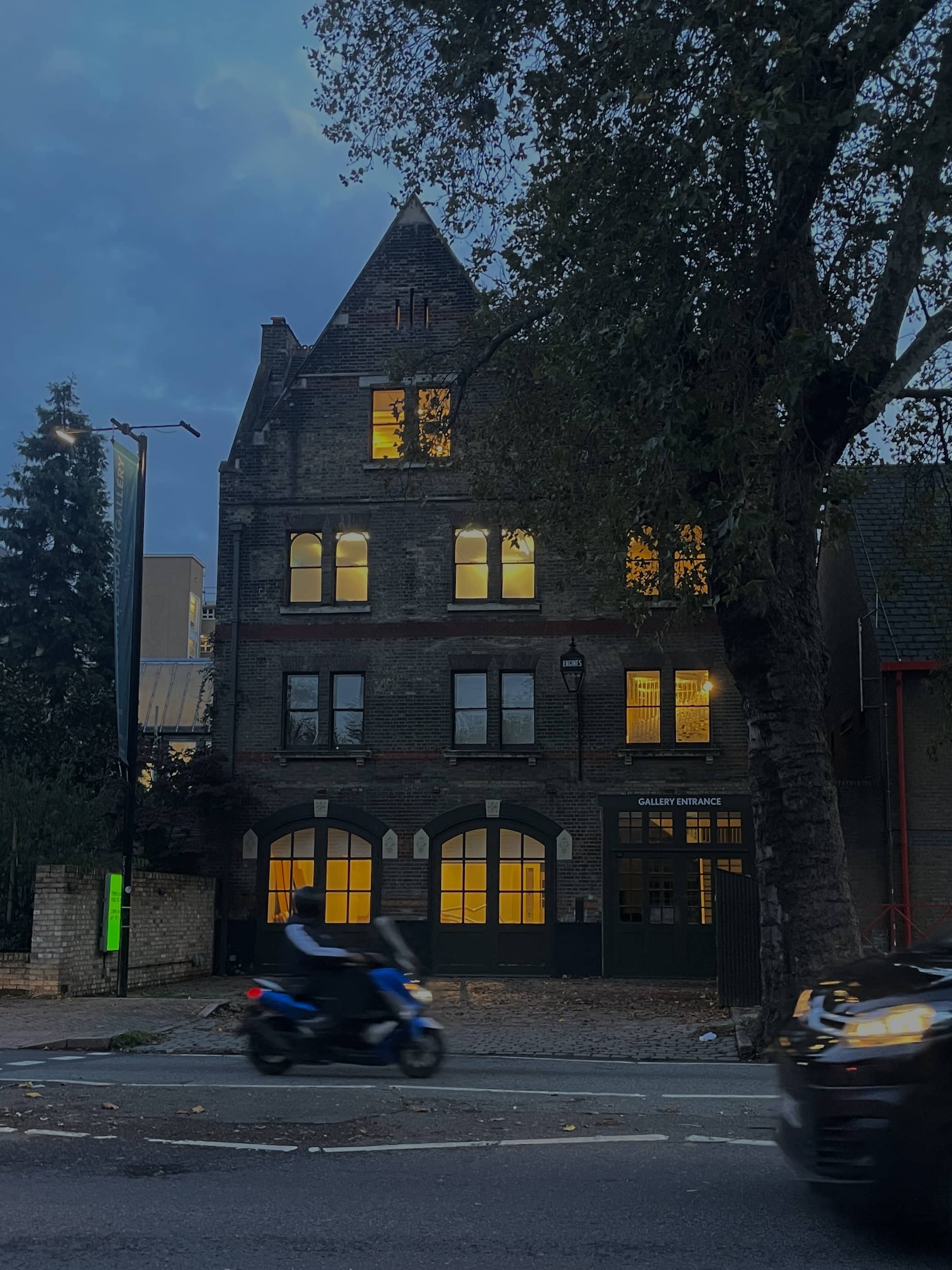
RE. Showcasing the importance of renovating, restoring, recycling and reusing. Influenced by the South London Gallery, Fire Station Site through their beautiful restoration of a derelict building transformed into a new exhibition space collaborating with Victorian architecture and Morden design to create an interesting space and community for local artists and designers. Designing with the intention of celebrating the beauty of restoration, using negative space to highlight the old features of the building that remain in the new design. Incorporating distinctive angular and curved features to create a display typeface that is memorable and presents the importance of reducing waste and restoring the old.